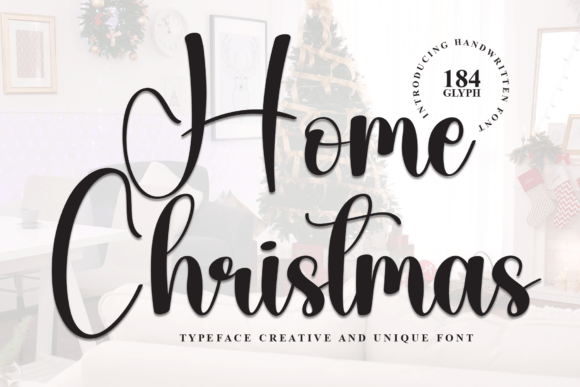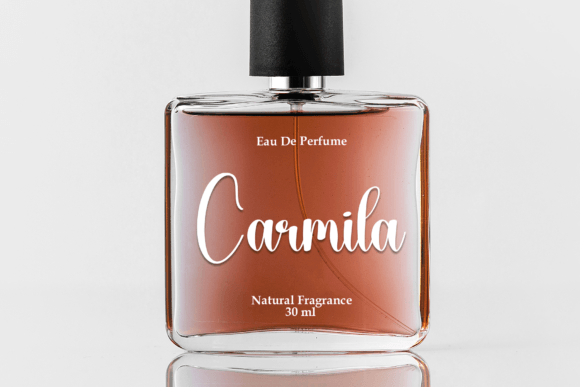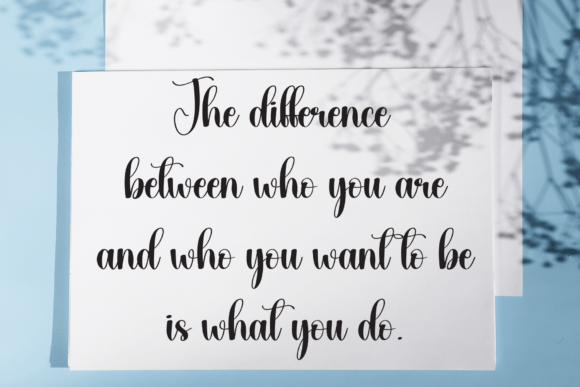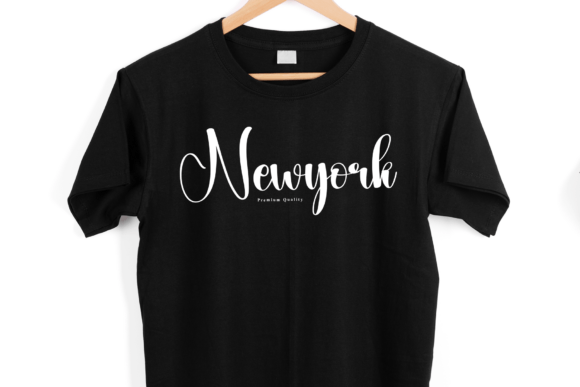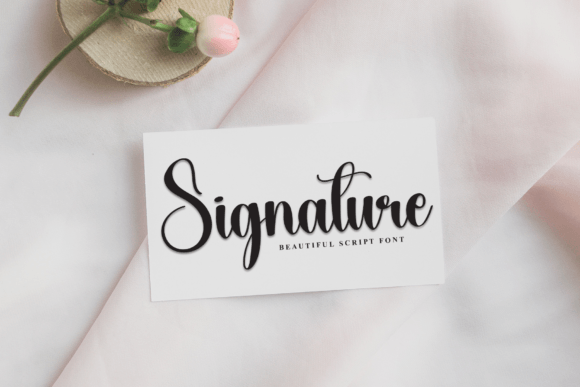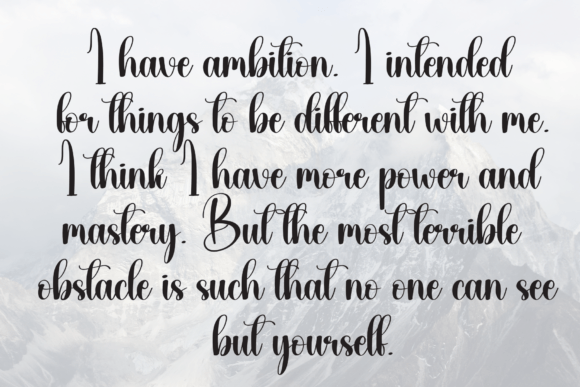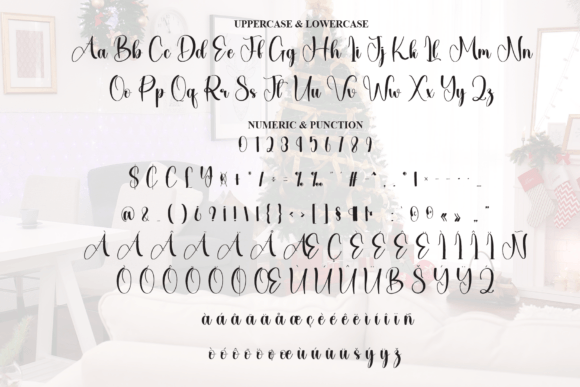
The Perfect Script for Your Holiday Designs
As the holiday season approaches, many designers find themselves searching for the perfect font to capture the magic of the season. And then, it hits – that spark of creativity that sets the imagination ablaze. The crunch of leaves beneath your feet, the twinkling lights on the Christmas tree, and the warmth of a crackling fire all blend together to inspire your next design project. This year, I discovered the Home Christmas Font, a stylish and elegant script that instantly transports me to a winter wonderland.
The Home Christmas Font is a versatile and sophisticated typeface that’s perfect for a range of design projects, from wedding invitations and thank you cards to logos, business cards, and greeting cards. Its handwritten touch adds a personal and intimate feel to any design, making it a valuable asset for designers looking to create unique and memorable pieces.
Home Christmas Font Key Features
- Unique Characteristics: Features a festive and elegant design, perfect for Christmas-themed projects and designs
Home Christmas Font Review
Overall, I was excited to dive into the “Home Christmas Font” and see what it had to offer. Here’s my honest review:
- The font’s festive vibe is infectious and perfect for the holiday season.
- The font’s playful, cursive style adds a touch of whimsy to any design project.
- The font’s extensive character set includes a wide range of punctuation and special characters, making it easy to use in a variety of contexts.
- The font’s design is a bit too over-the-top for some tastes, which may not appeal to designers looking for a more subtle approach.
- The font’s weight and style options are limited, which may not provide enough flexibility for designers working on complex projects.
Overall, the “Home Christmas Font” is a fun and festive addition to any designer’s toolkit. While it may not be the most versatile font, it’s perfect for designers looking to add a touch of holiday cheer to their projects. With a bit of creativity and caution, this font can add a lot of value to your designs.
The Home Christmas Font is ideal for creating festive and cozy designs for holiday cards, invitations, and social media posts. To get the most out of it, use it in conjunction with other festive elements such as holly, snowflakes, and candy canes. Experiment with different font sizes, colors, and styles to create a unique and eye-catching design.